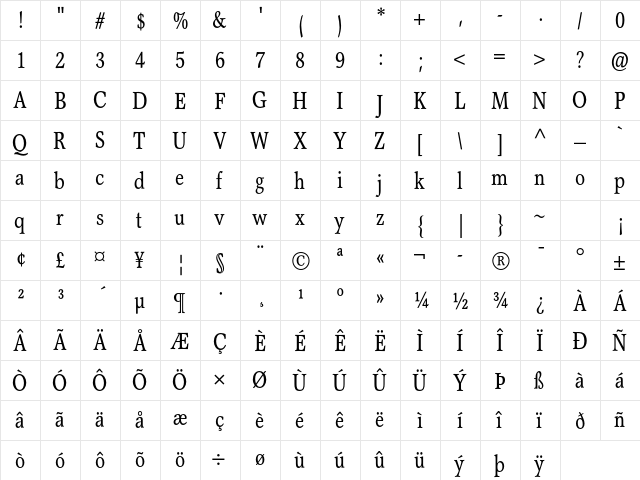
Garth Graphic Std Condensed Font Preview
Garth Graphic Std Condensed
Garth Graphic Std Condensed Font Details
Design Context for Garth Graphic Std Typeface
Garth Graphic Std offers clean, dependable letterforms without strong stylistic allegiance, making it a practical choice for designers who need flexibility. Its narrow stance lets it pack a punch even in space-constrained designs.
Pro Tip: Use Garth Graphic Std in both headline and body roles to test its range before committing to a single application.